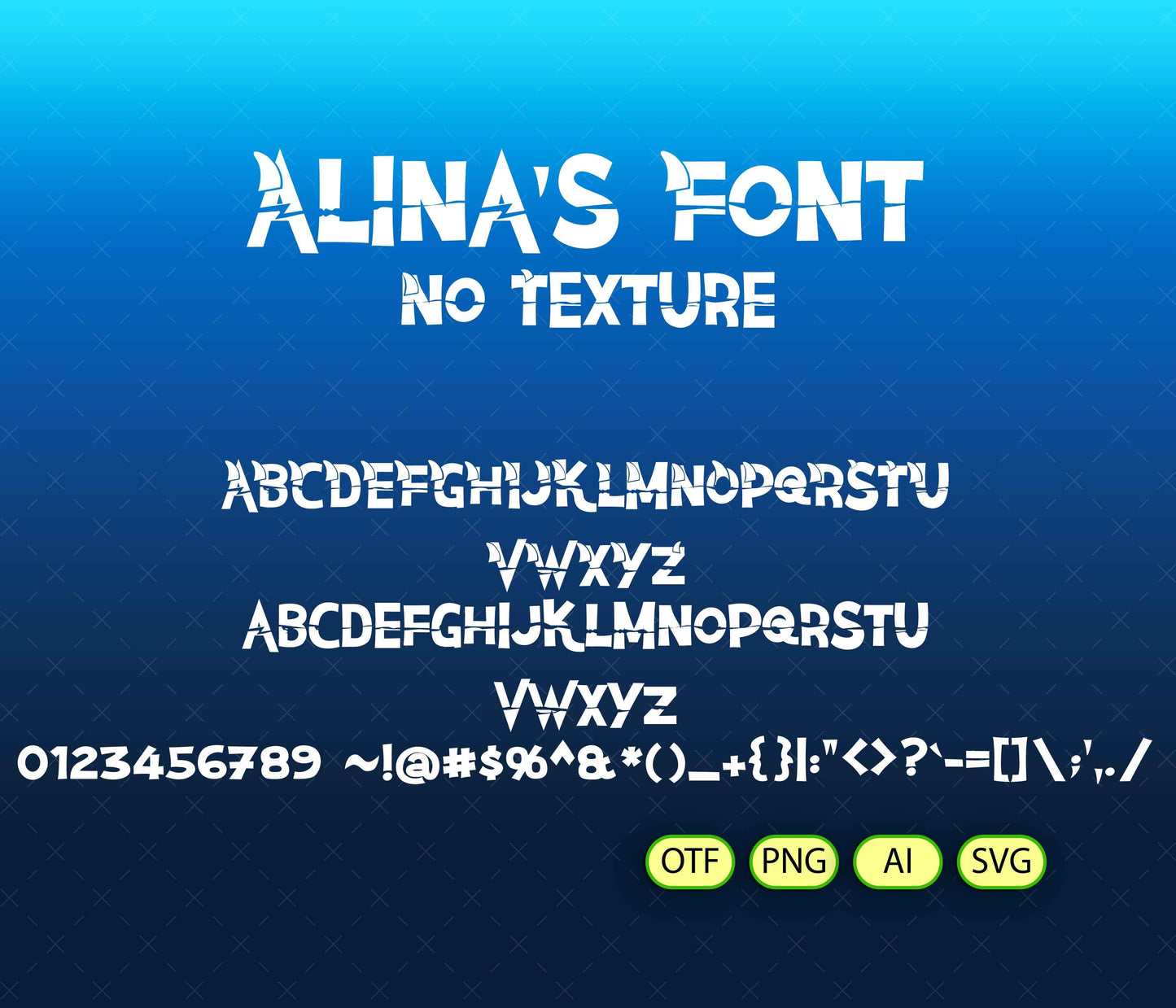
Aquatic Rivals Font
Step into the hilarious world of sea-and-shore shenanigans with our specially designed font, capturing the essence of a persistent shark and his mermaid-guarding nemesis! Perfect for cartoon enthusiasts, event planners, and designers, this font brings the comedic, chase-filled spirit of beach adventures to your projects. Create event invitations, themed merchandise, or digital content with the zany energy of underwater pursuits.
Our Aquatic Rivals font features energetic, humorous lines and lively characters reflecting the comedic nature of endless pursuits. Ideal for:
- Event Promotions: Fun-filled invites, posters, banners for beach parties, cartoon marathons, seaside celebrations.
- Merchandise Design: T-shirts, posters, accessories capturing the essence of oceanic comedy.
- Digital Media: Enhance websites, blogs, social media with humorous headers and graphics.
- Animation Content: Authentic flair for cartoon projects, fan art, beach-themed entertainment.
- Personal Projects: Comedy and chase-themed fun for scrapbooking, DIY crafts, home decor inspired by seaside antics.
Our font pays tribute to beachside cartoon chaos, empowering your designs with its comedic and energetic spirit. Whether crafting promotional materials, designing merchandise, or adding a humorous touch to personal projects, this font communicates the zany essence of oceanic pursuits. Ready to inject beach-themed mayhem into your creations? This font is your key to hilarious, impactful design.